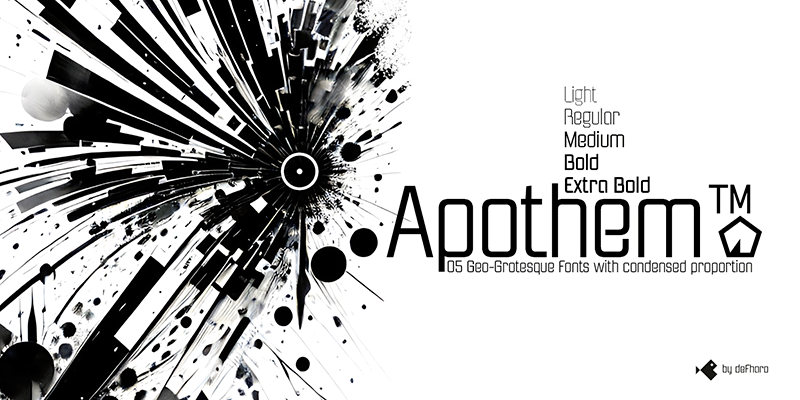
Apothem is a very versatile condensed typeface, recommended for a wide range of applications. From the composition and design of publications, brochures, posters or signage to the creation of logos, product packaging, signage or corporate image, elevating any project to a higher level. Its coherence and geometric elegance provide a distinctive and professional character to any design work. ========================= DOWNLOAD FULL VERSIONS & LICENSES: https://defharo.com/fonts/apothem/ ========================= |